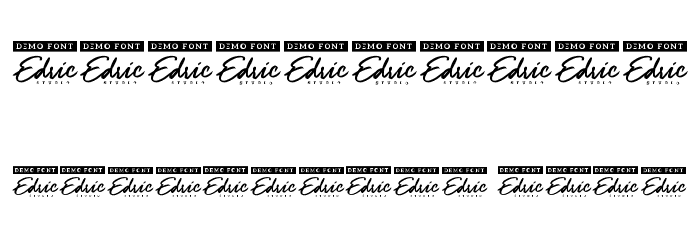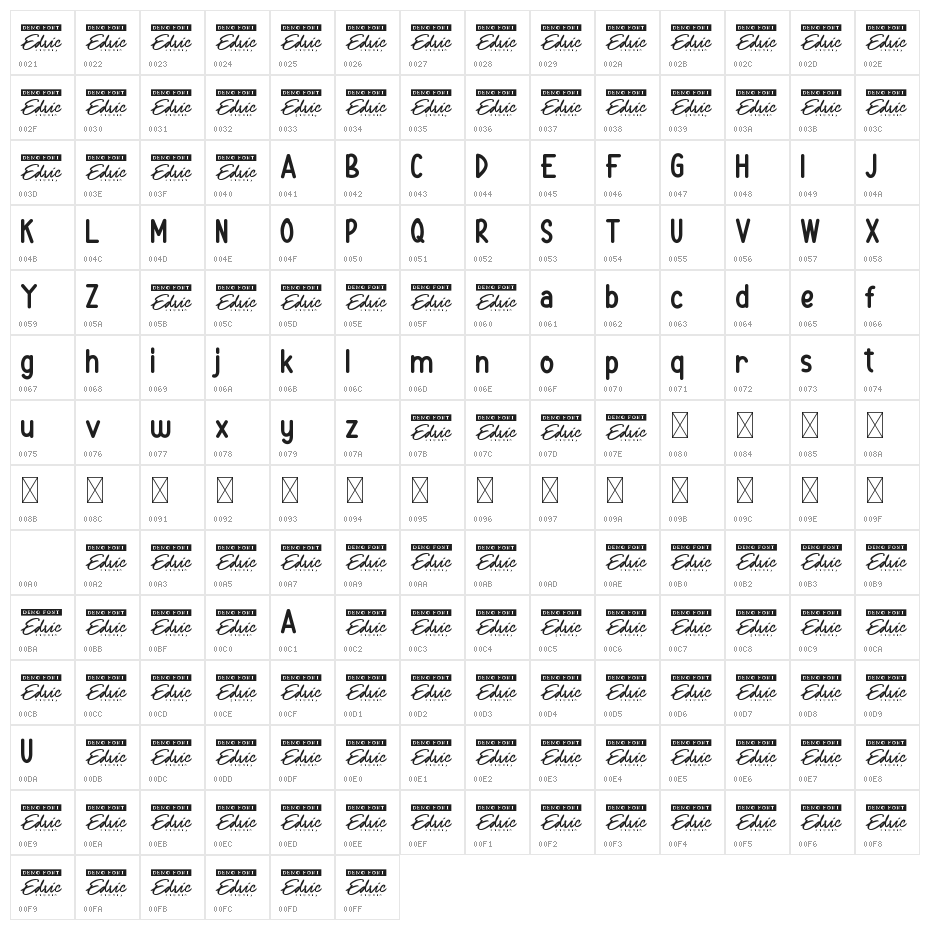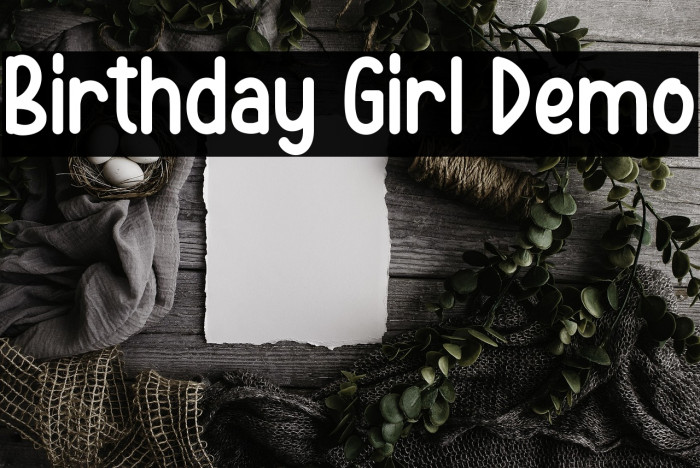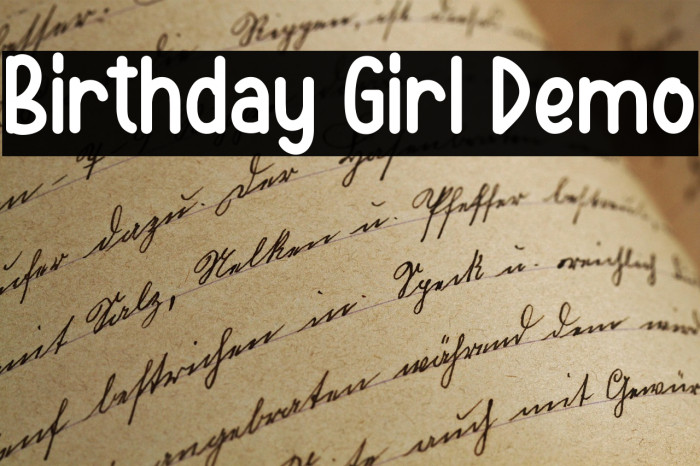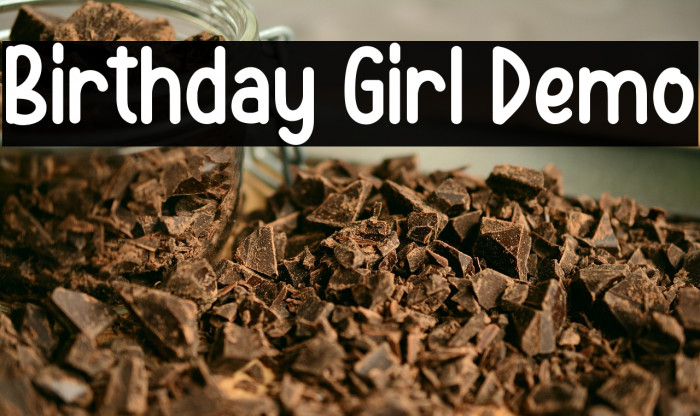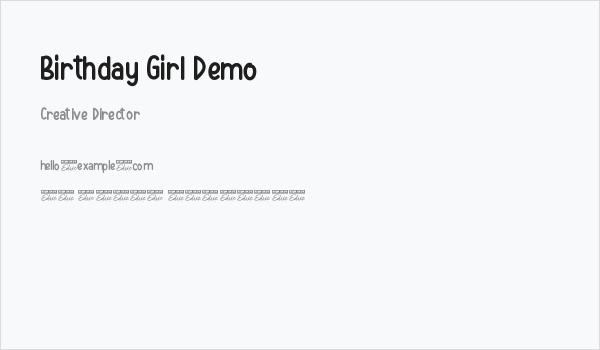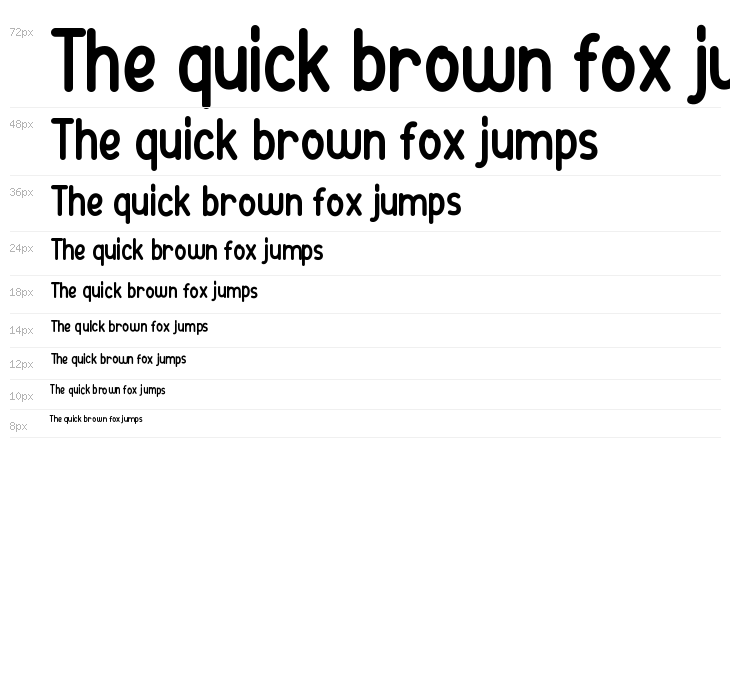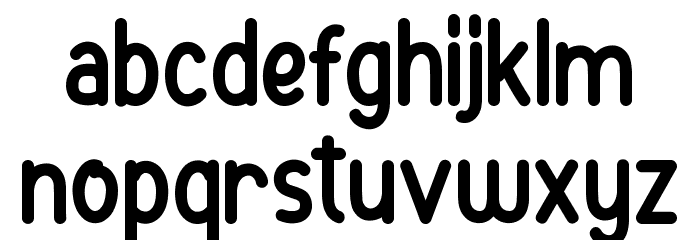
Birthday Girl Demo Font
Birthday Girl Demo Description
This playful and rounded font exudes a friendly and approachable vibe, making it ideal for informal and fun design projects. The letters are bold and slightly condensed, with smooth curves and a consistent stroke width that adds to its readability. The font's whimsical nature is perfect for capturing attention in a lighthearted manner, making it suitable for children's books, party invitations, or any project that requires a touch of cheerfulness. The uniformity in character height and width ensures a balanced appearance, while the slightly tight character spacing enhances its compact look.
Overall StylePlayful
Proposed ProjectsIdeal for children's books, party invitations, greeting cards, and playful branding.